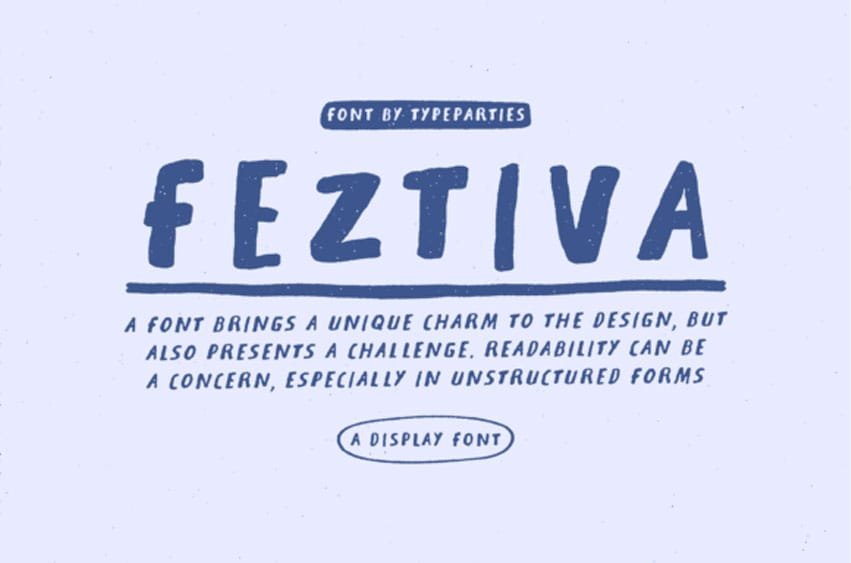
Feztiva Font is a lively and whimsical display font that radiates festive charm. Its playful curves and unique letter shapes evoke a sense of celebration and joy.
Perfect for invitations, posters, and greeting cards, Feztiva adds a delightful touch of fun and personality to any design project.